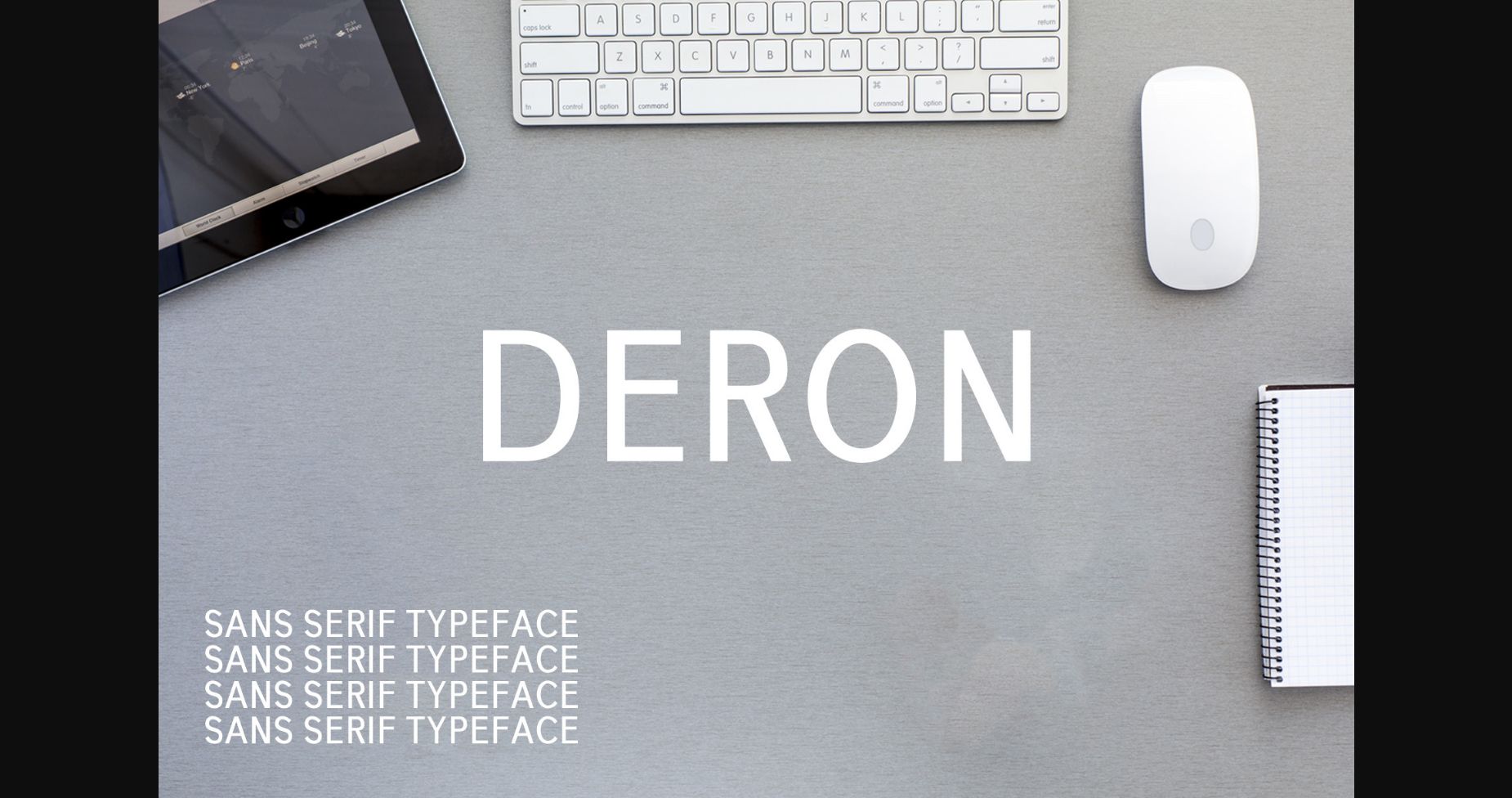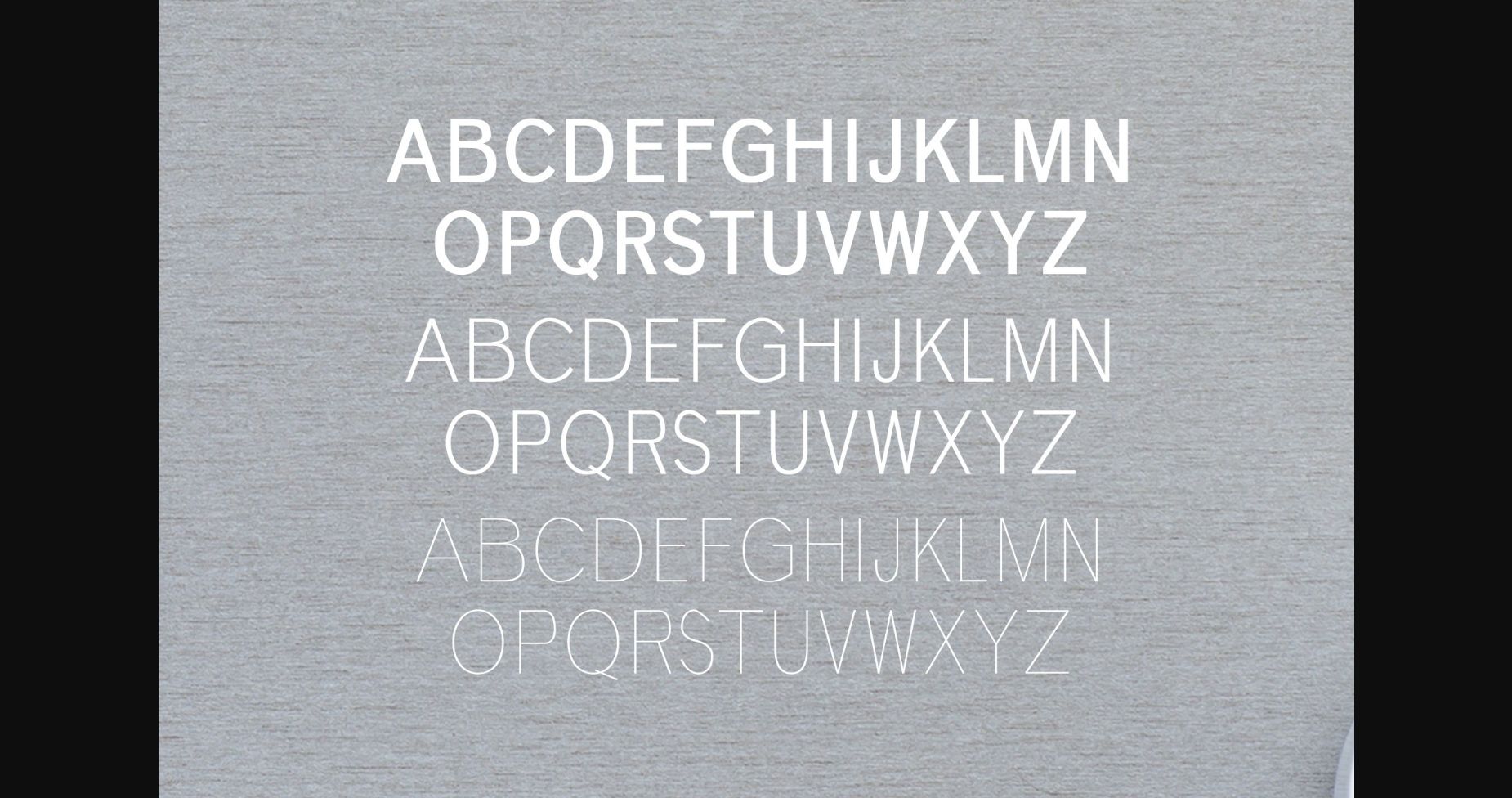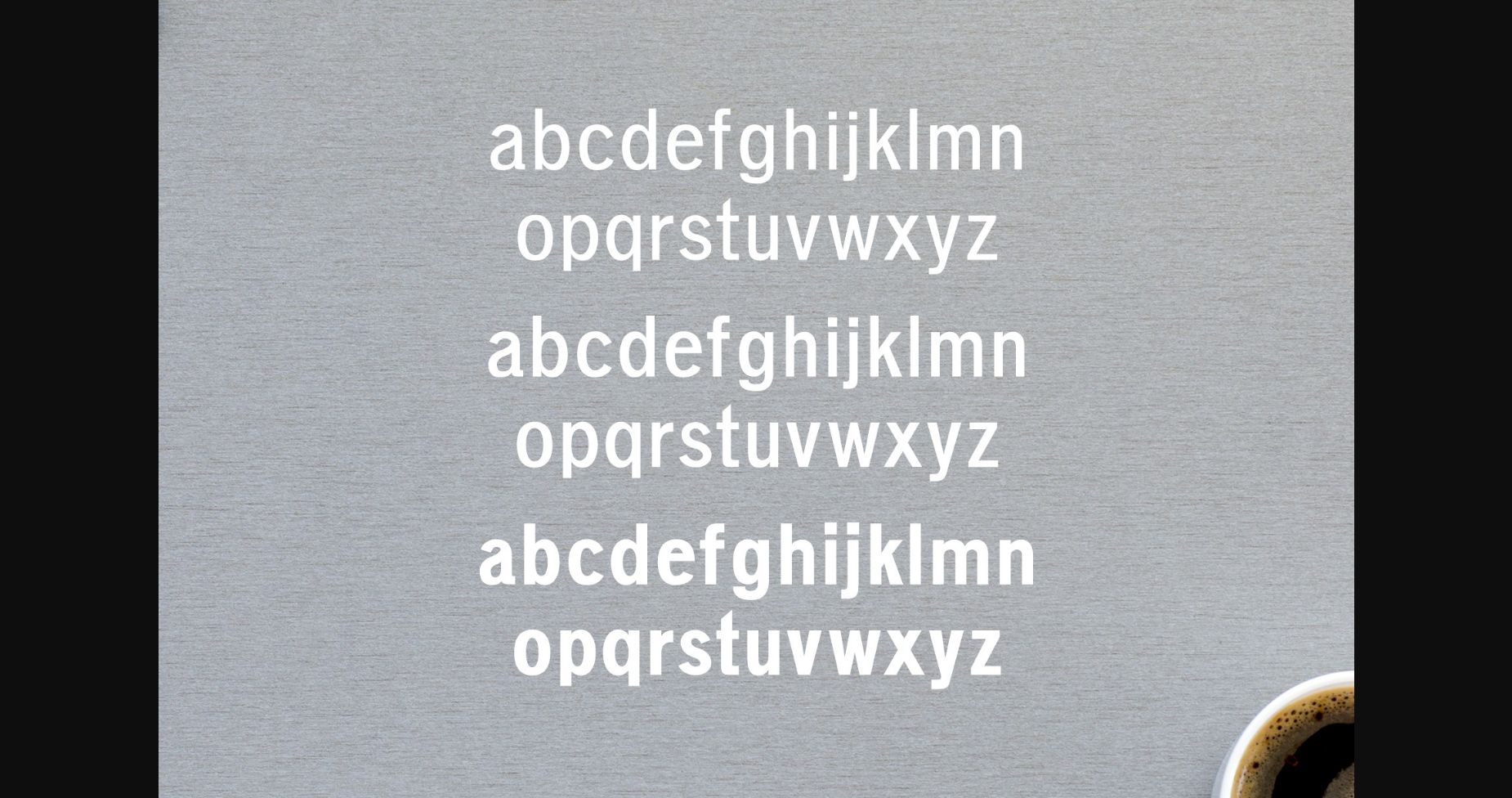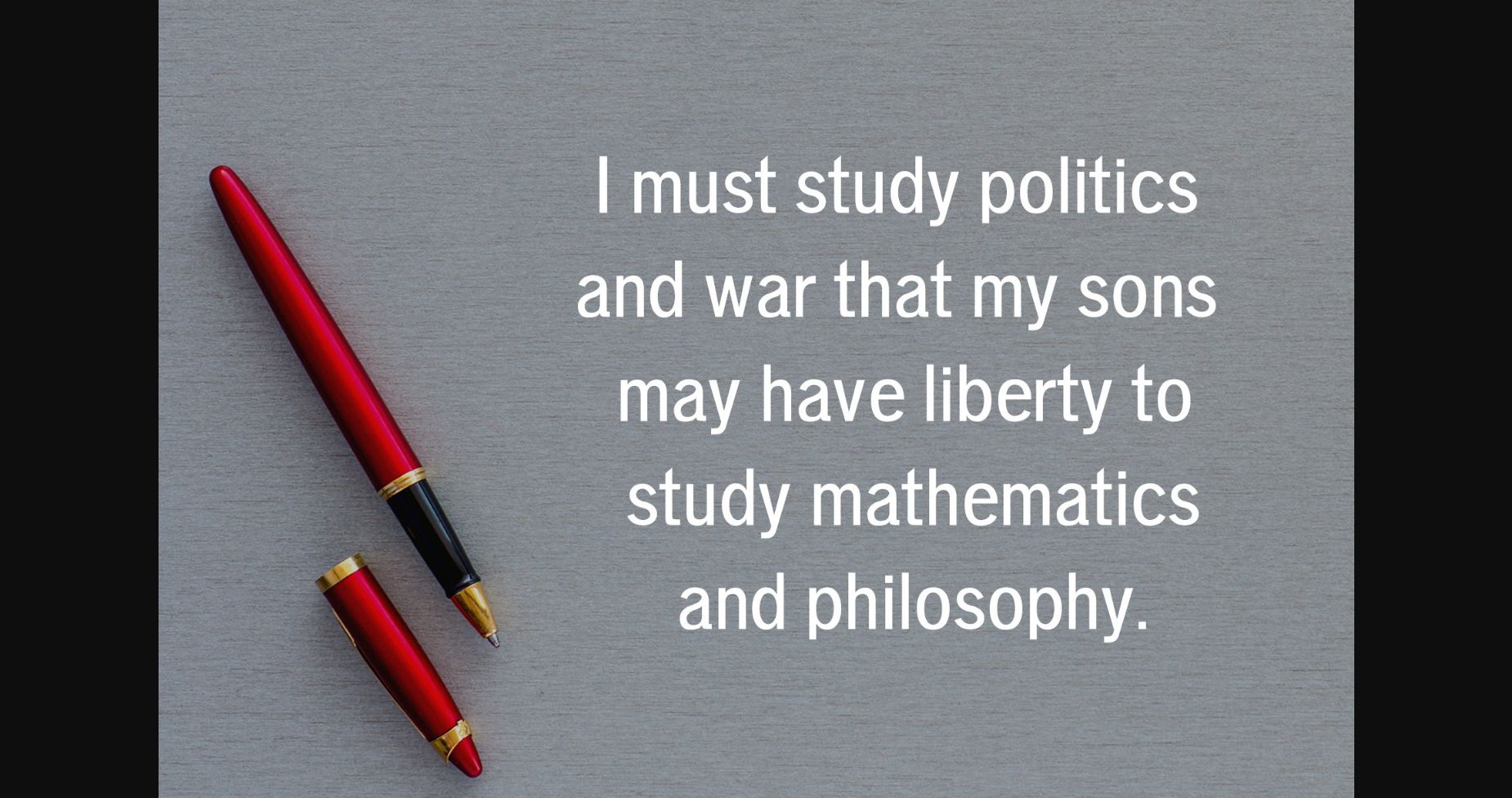
About Deron Family Font
Deron is a geometric sans serif font family. Its unique and modern characters make this font a great choice for a variety of typographic applications such as branding, banners, templates, catalogs, fashion magazines, and many more.